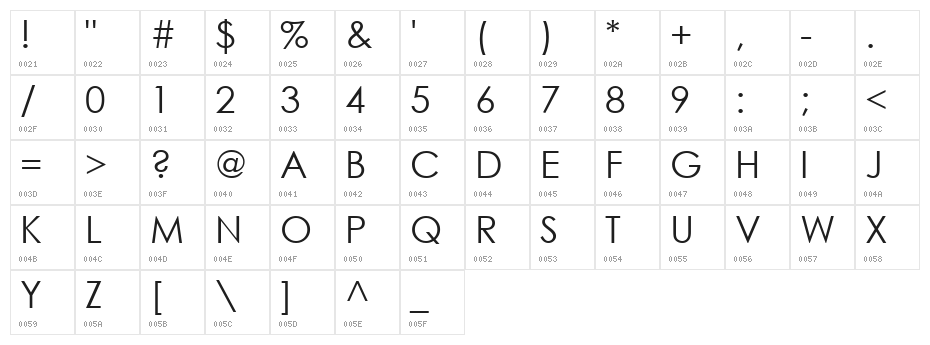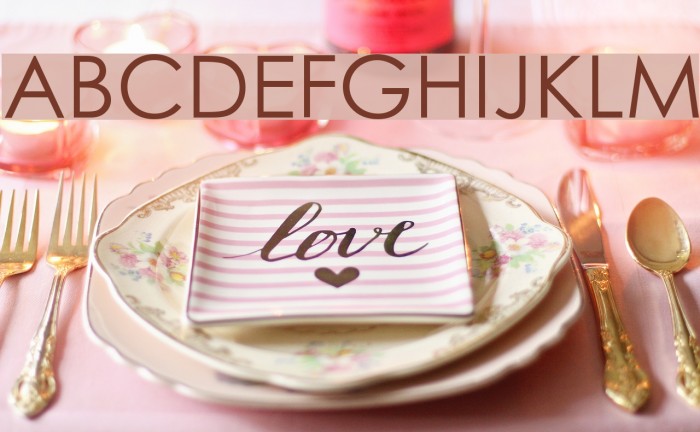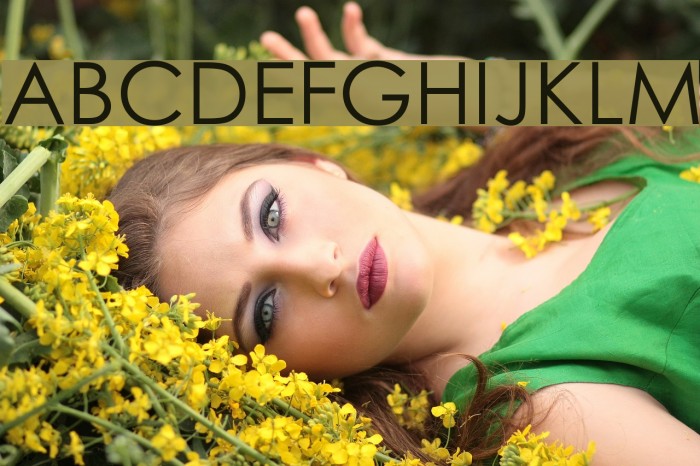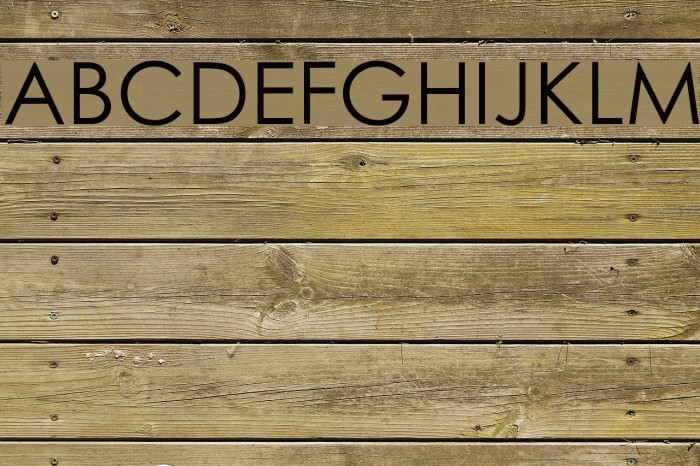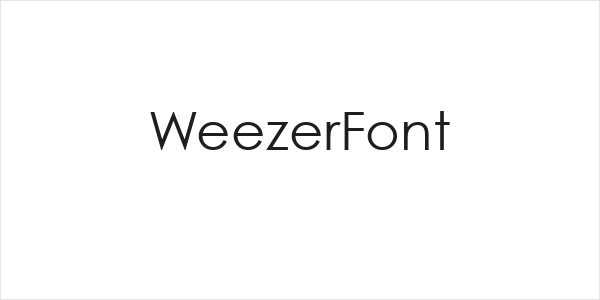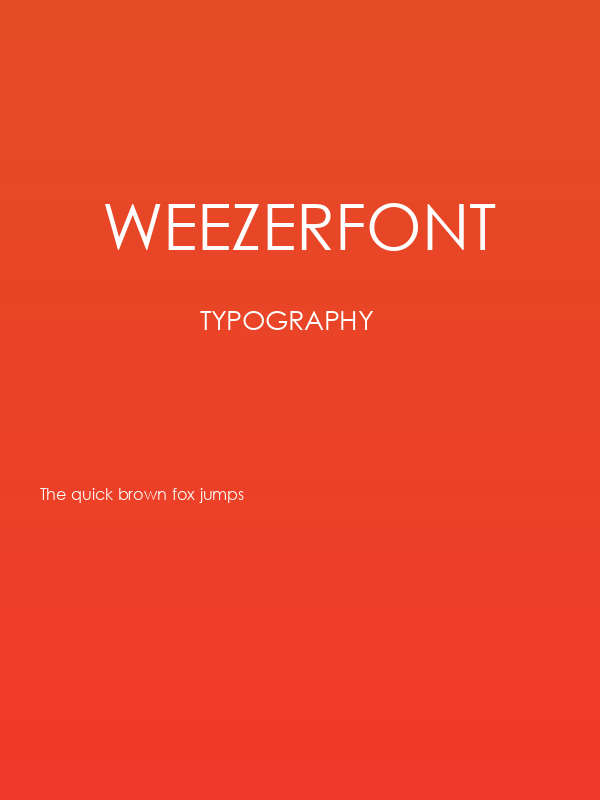
WeezerFont Font
WeezerFont Description
This font features a clean and modern sans-serif design, characterized by its geometric shapes and consistent stroke width. The uppercase letters are bold and assertive, while the lowercase letters maintain a harmonious balance, offering a sleek and professional appearance. The numerals are clear and easy to read, making them suitable for various applications. Special characters are well-integrated, maintaining the overall aesthetic of the font. Its simplicity and clarity make it versatile for both digital and print media, ensuring readability across different sizes and formats.
| Proposed Projects | Ideal for branding, web design, advertising, and editorial layouts. |